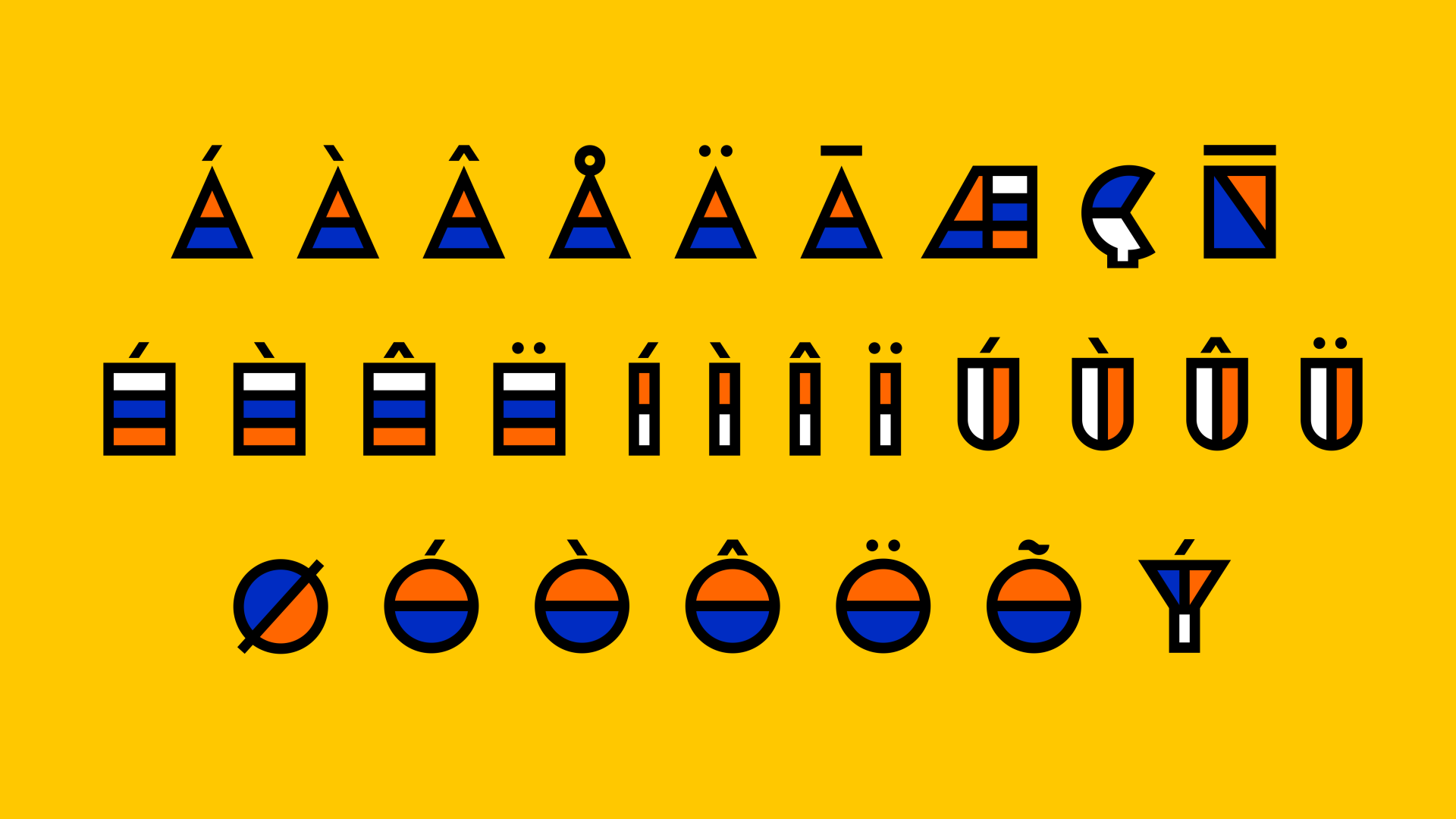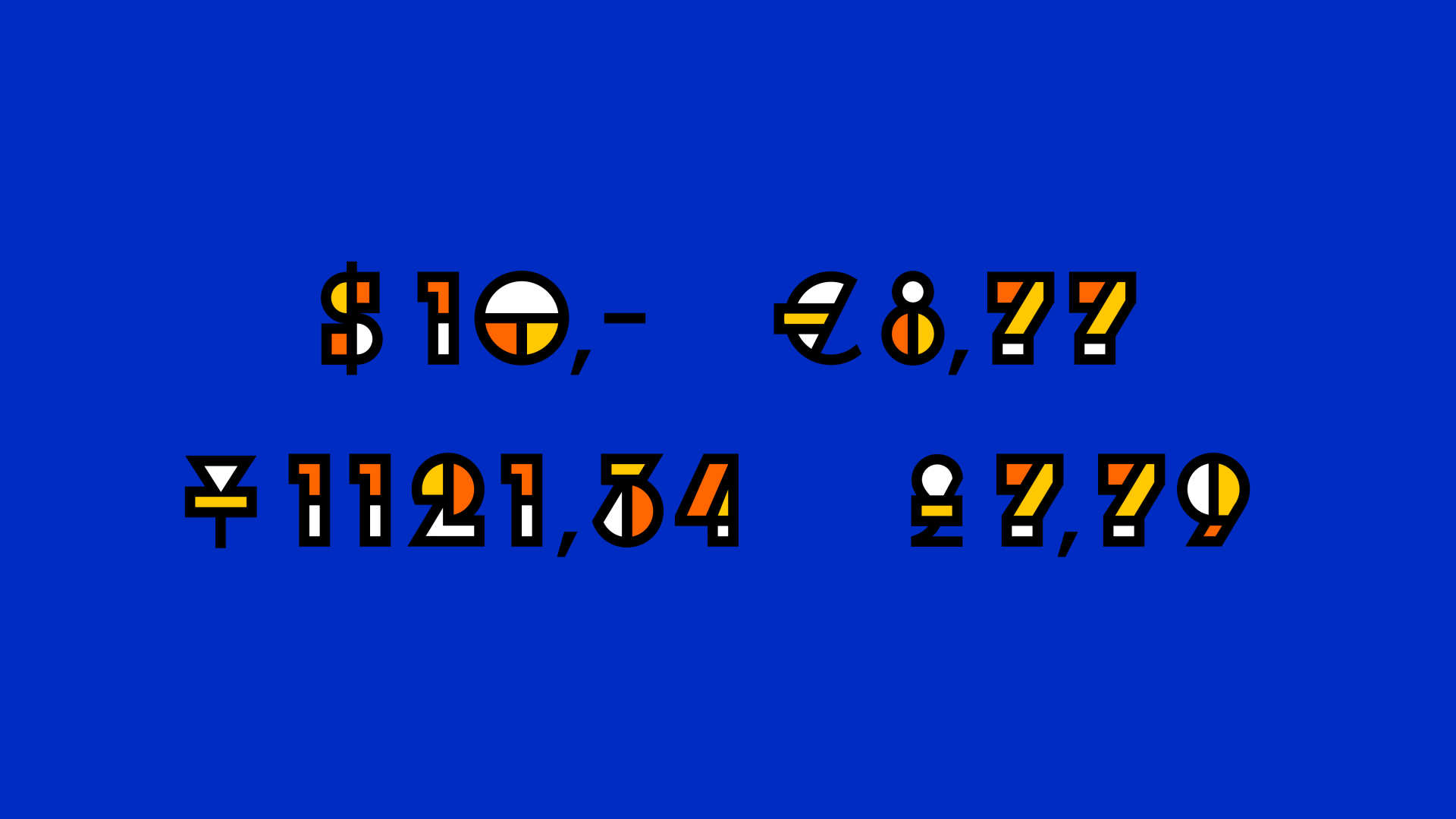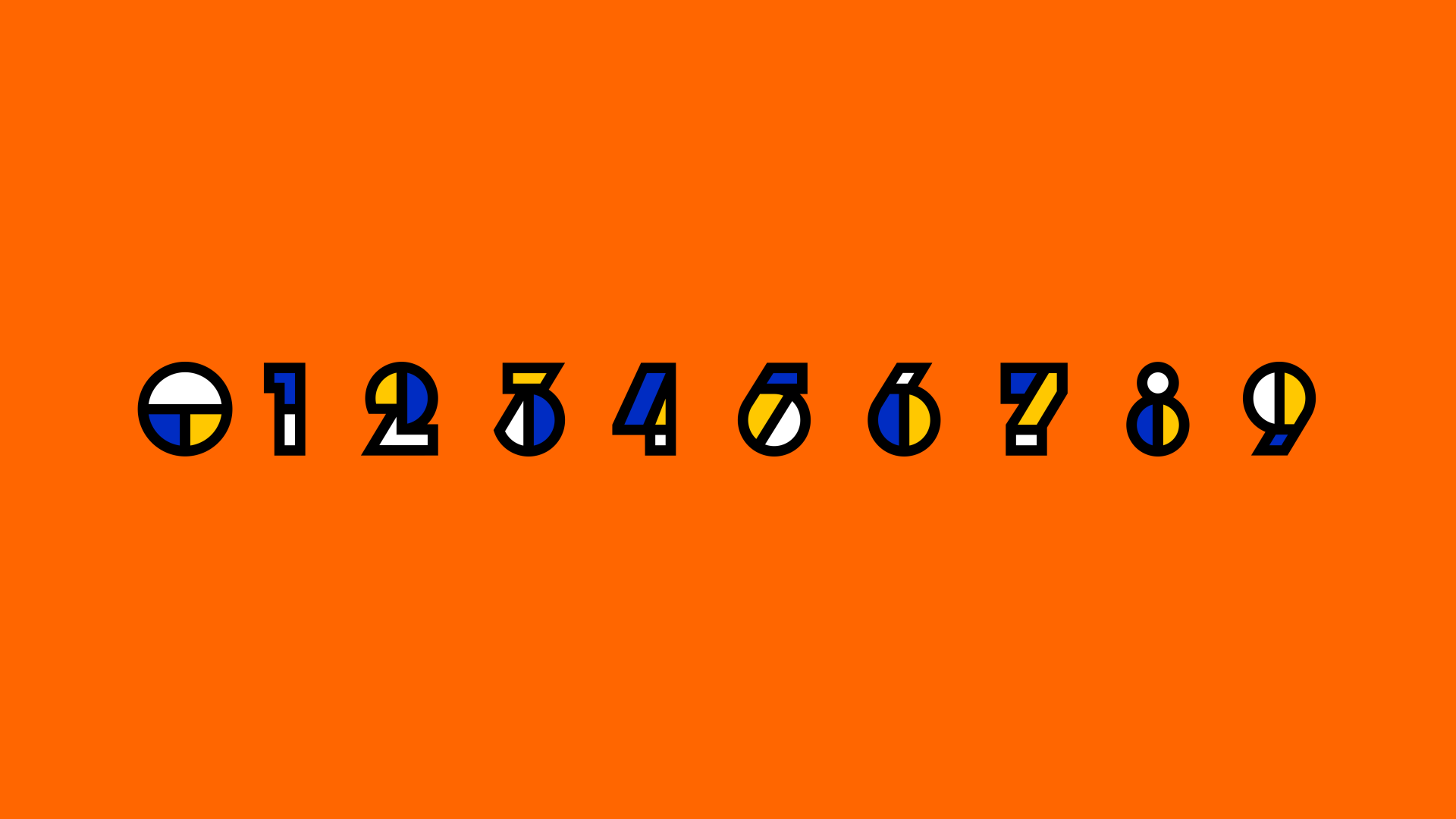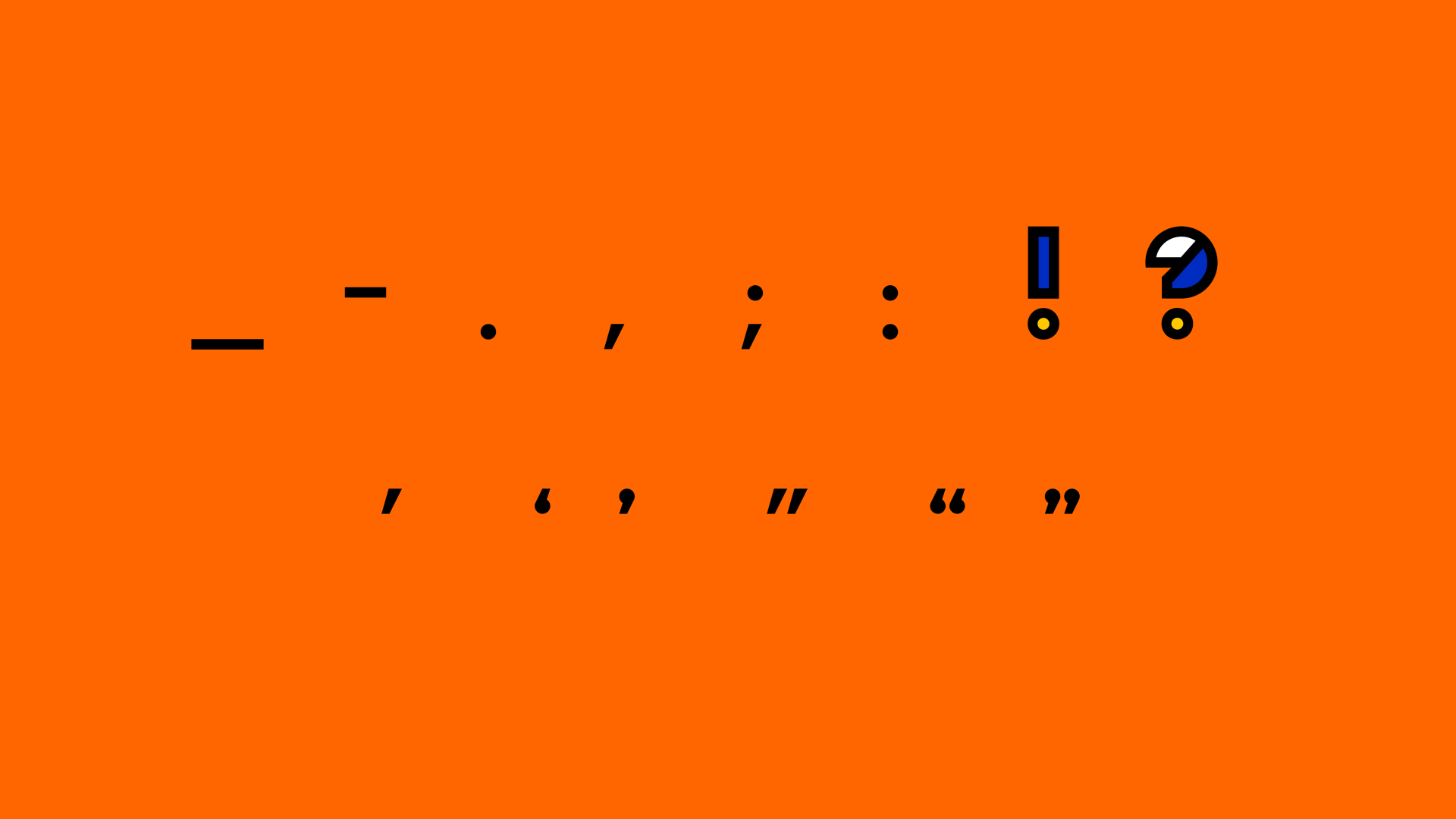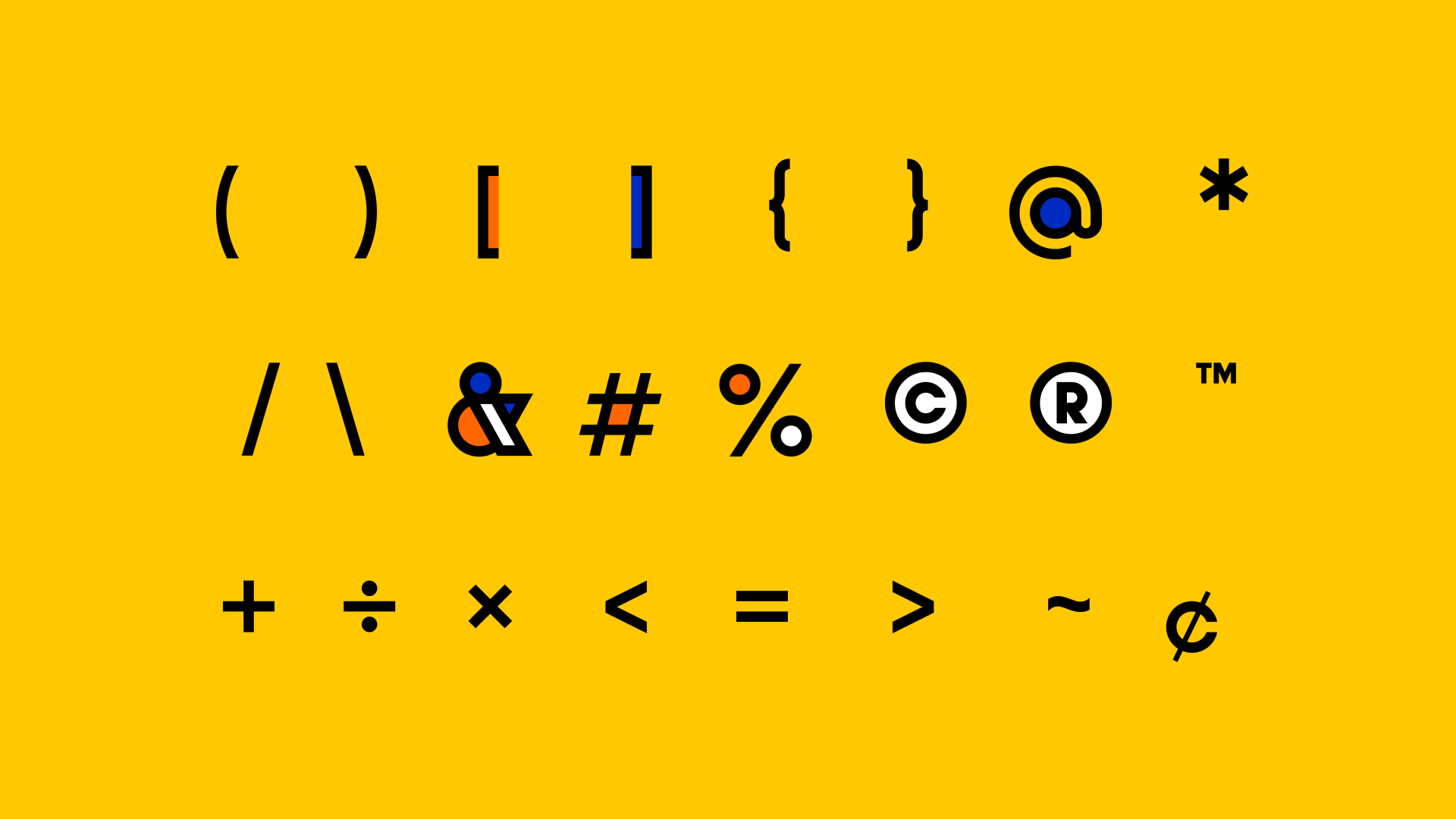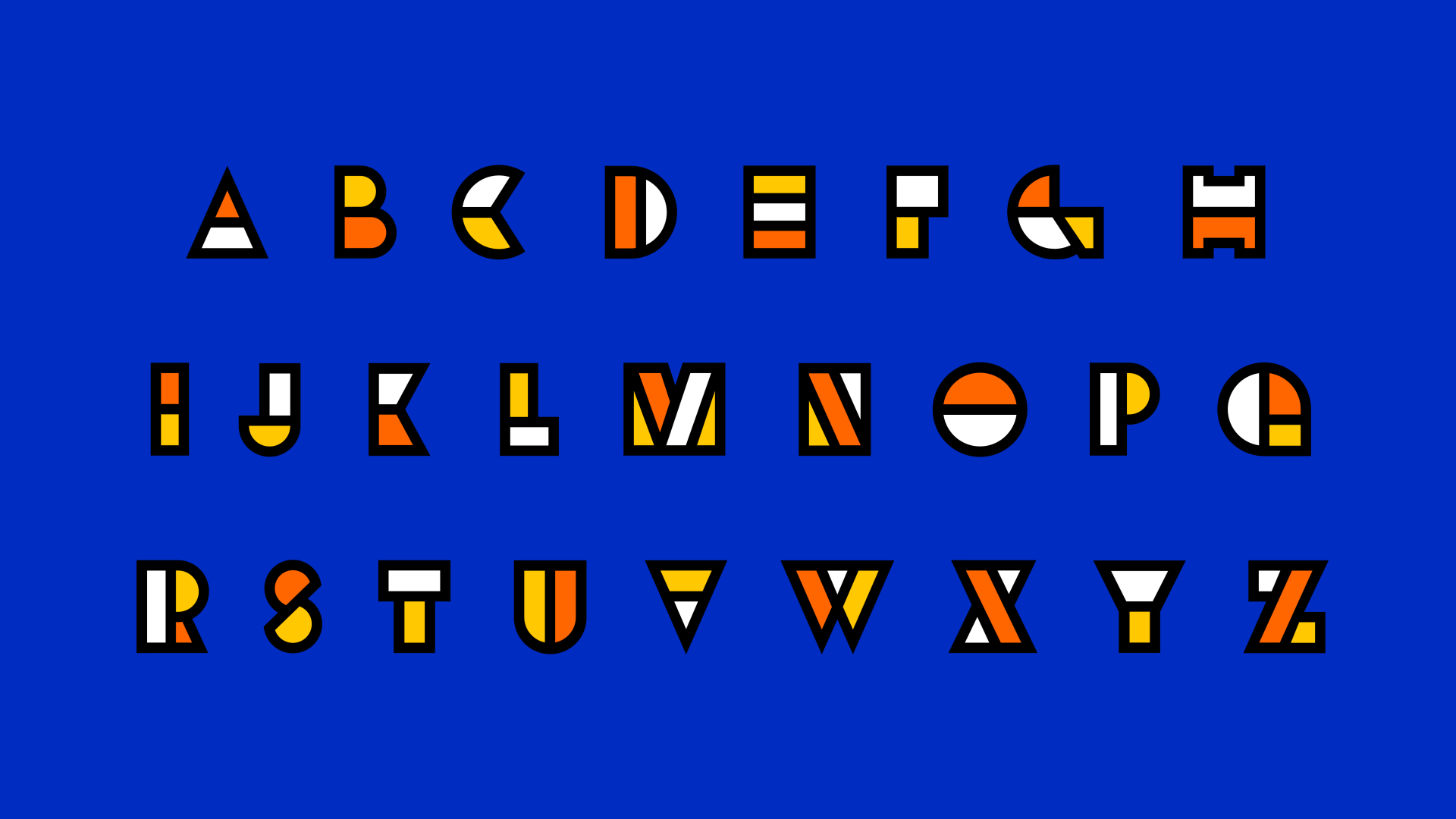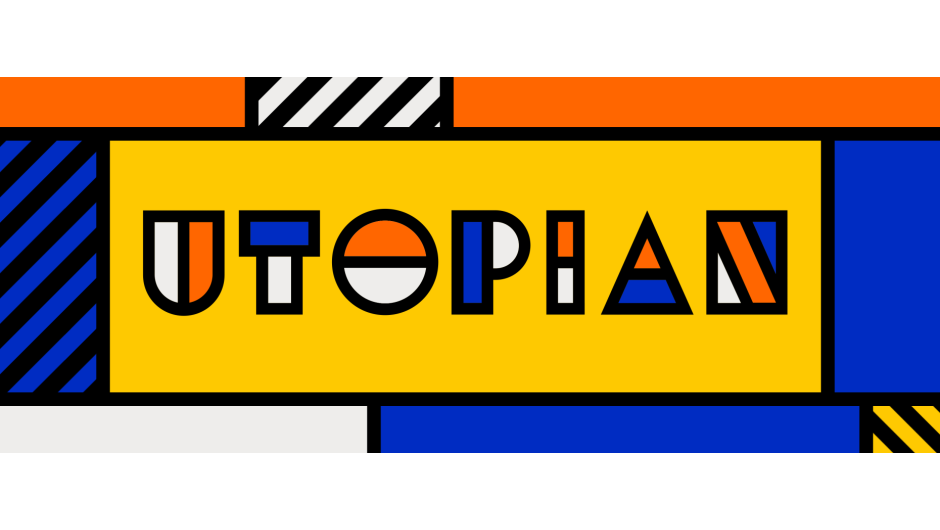
Utopian - Animated Typeface
Utopian is a highly graphic, modular type with animations to match. Flourishes are kept to a minimum and focus lays on primary shapes. Each character builds up from a rectangle shape that complements the simplicity and boldness of the typeface.
Utopian is an animated typeface by Alex Trochut and Pablo Lozano. Influenced by the work of Mondrian, Sol Lewitt and De Stijl, Utopian is a highly graphic, modular type with animations to match. Flourishes are kept to a minimum and focus lays on primary shapes. Each character builds up from a rectangle shape that complements the simplicity and boldness of the typeface, while bringing an interesting and surprising way of revealing each glyph.
• 4 colors
Type design: Alex Trochut
Animation: Pablo Lozano